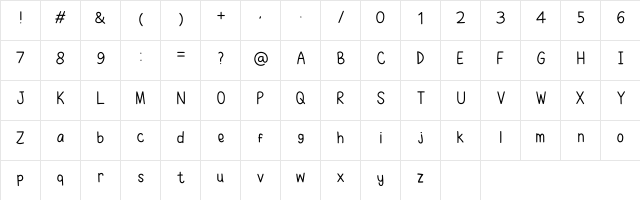
Ruhma Font Regular
Design Context for Ruhma Font Typeface
Ruhma Font takes a measured approach to typography — its balanced proportions and neutral character make it a reliable workhorse for both digital and print work.